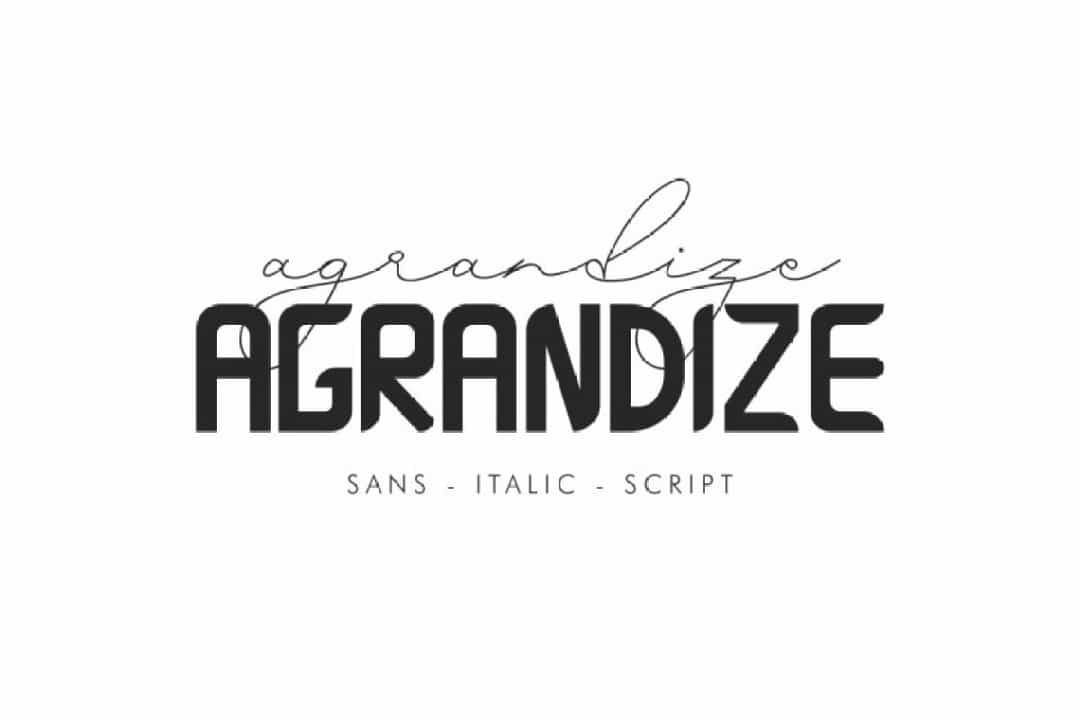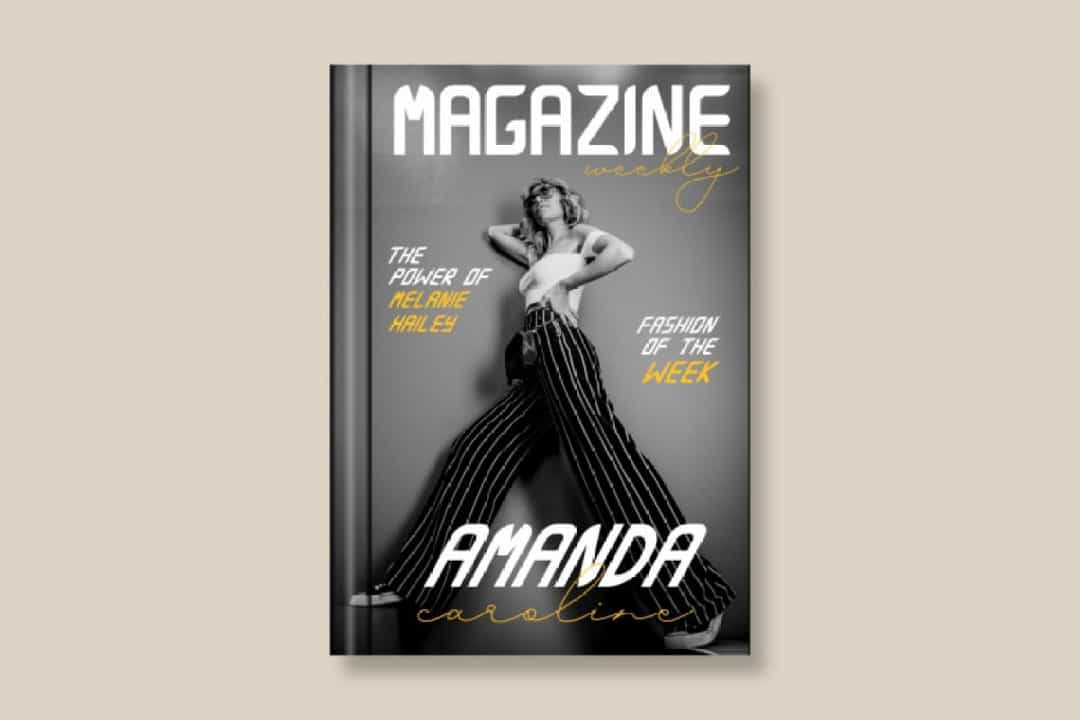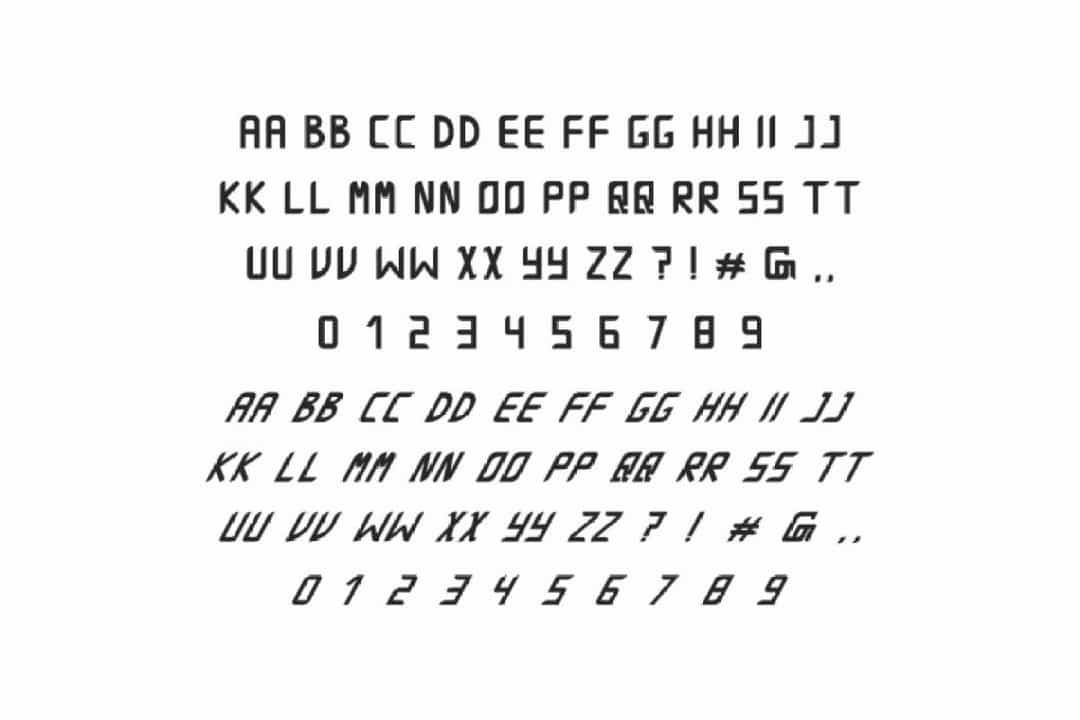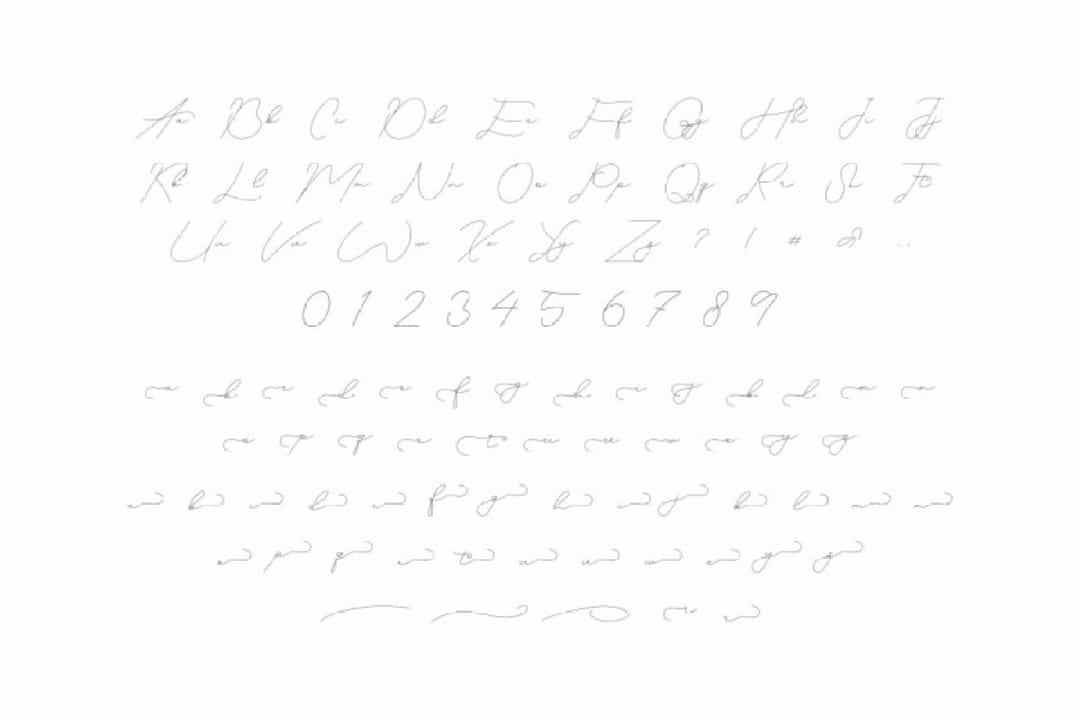
Discover Agrandize Font Duo, part of the Sans Serif Handwritten Script Basic collection—a versatile and unique font perfect for adding a personal touch to your projects. Download it for free and enjoy crafting designs with style, from invitations to social media posts. This font is available exclusively for personal use, giving you the freedom to create without limits. Unlock your creativity with Agrandize Font Duo today!
Agrandize is a font family specifically designed for e-mails and comes in three different styles; it was created by the NihStudio Font Designers Widi Sarah and Widi Sarah of the NihStudio Font Design Studio in Japan. Three different styles of Agrandize makes it very versatile to be used in many projects (extended license) such as logo and branding stationery and business cards, signage, flyer and brochure design – Regular Bold Script signature styled font family.